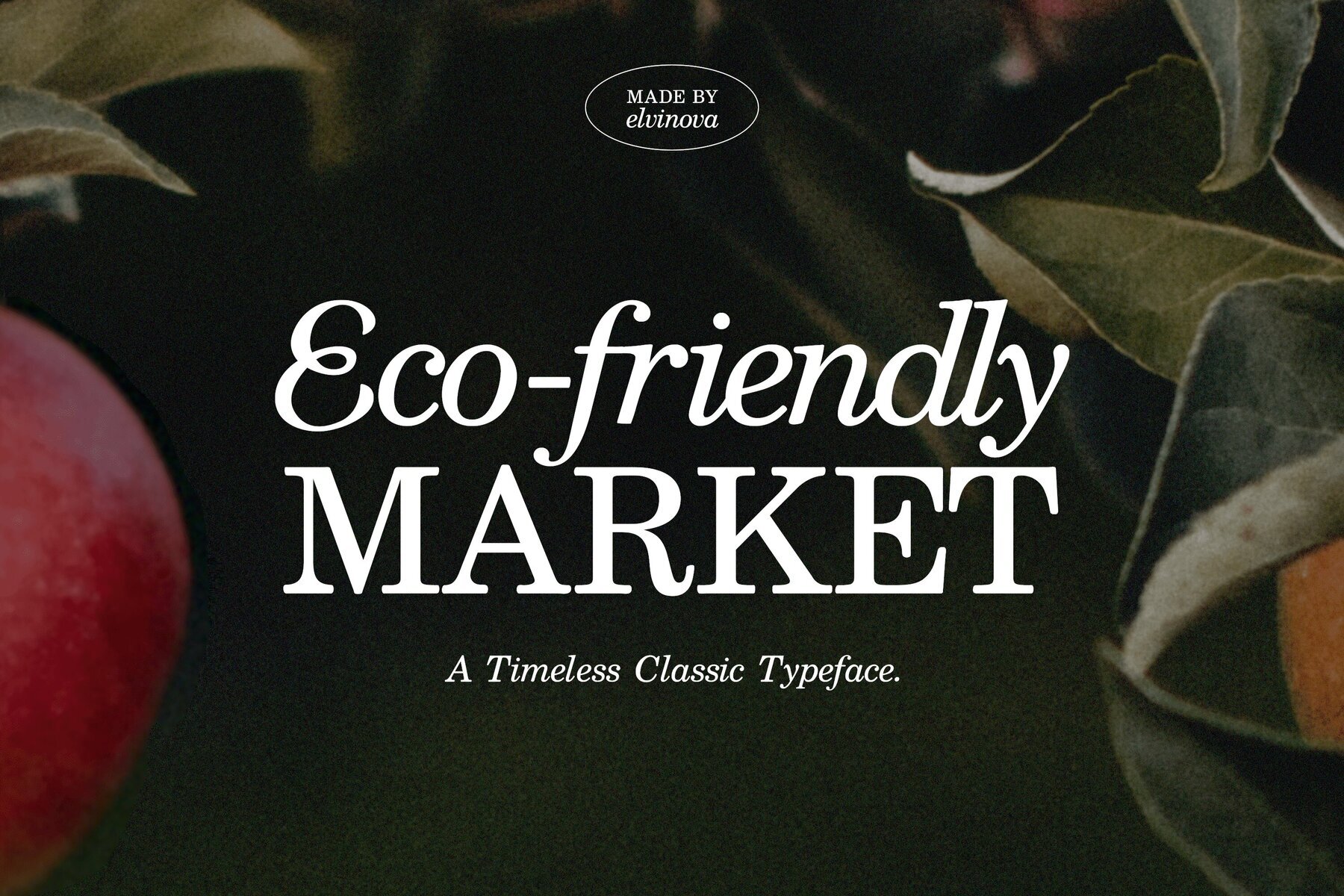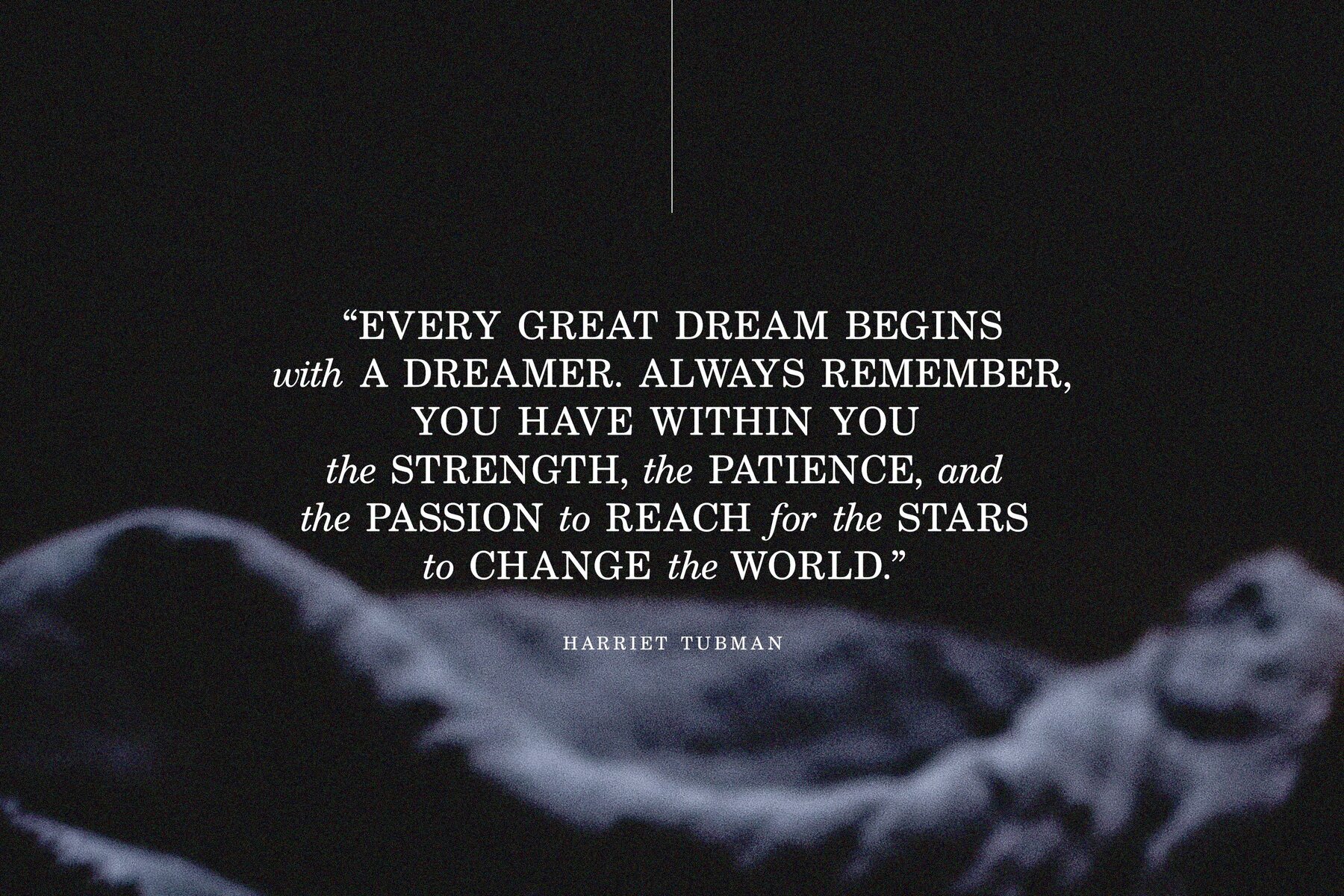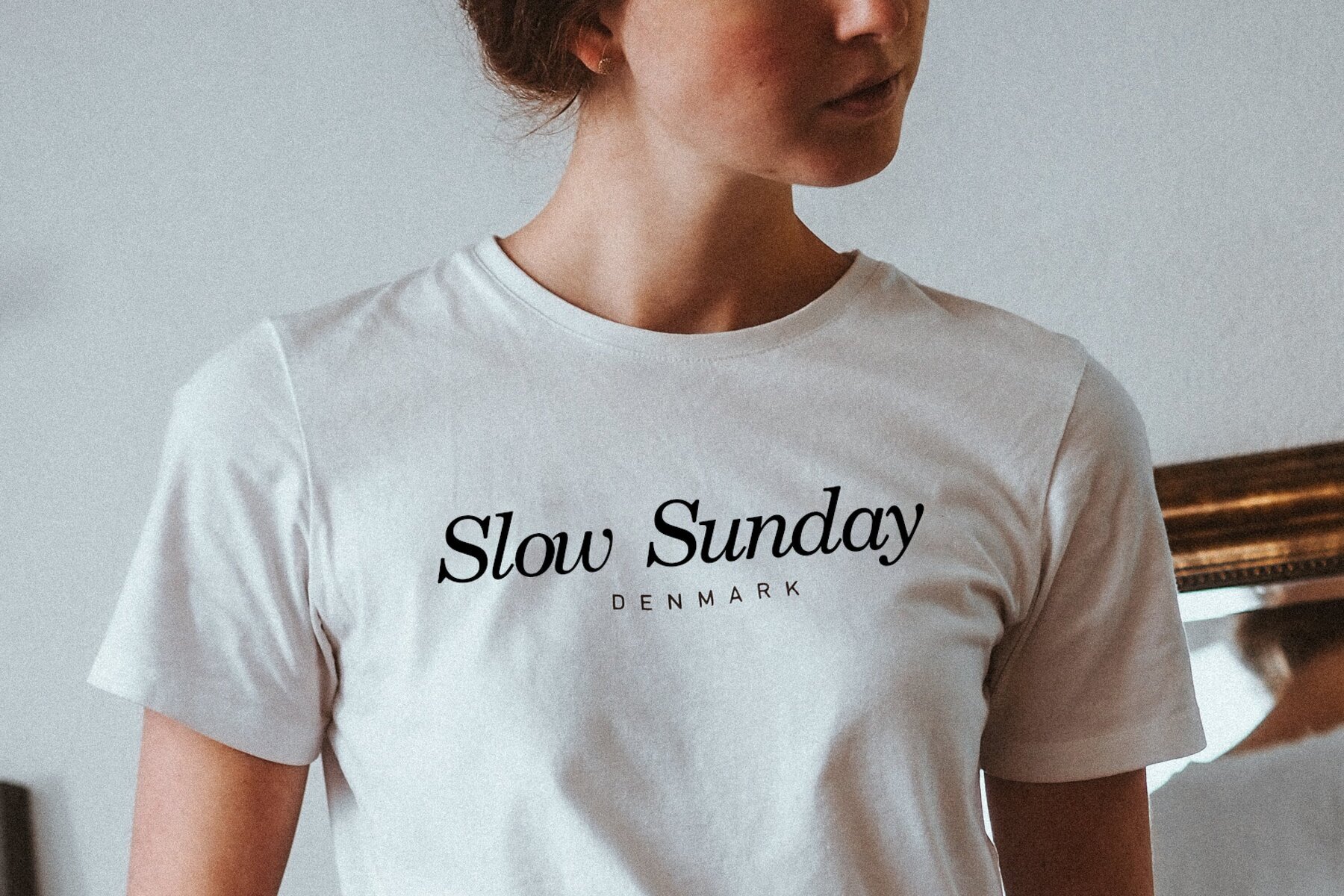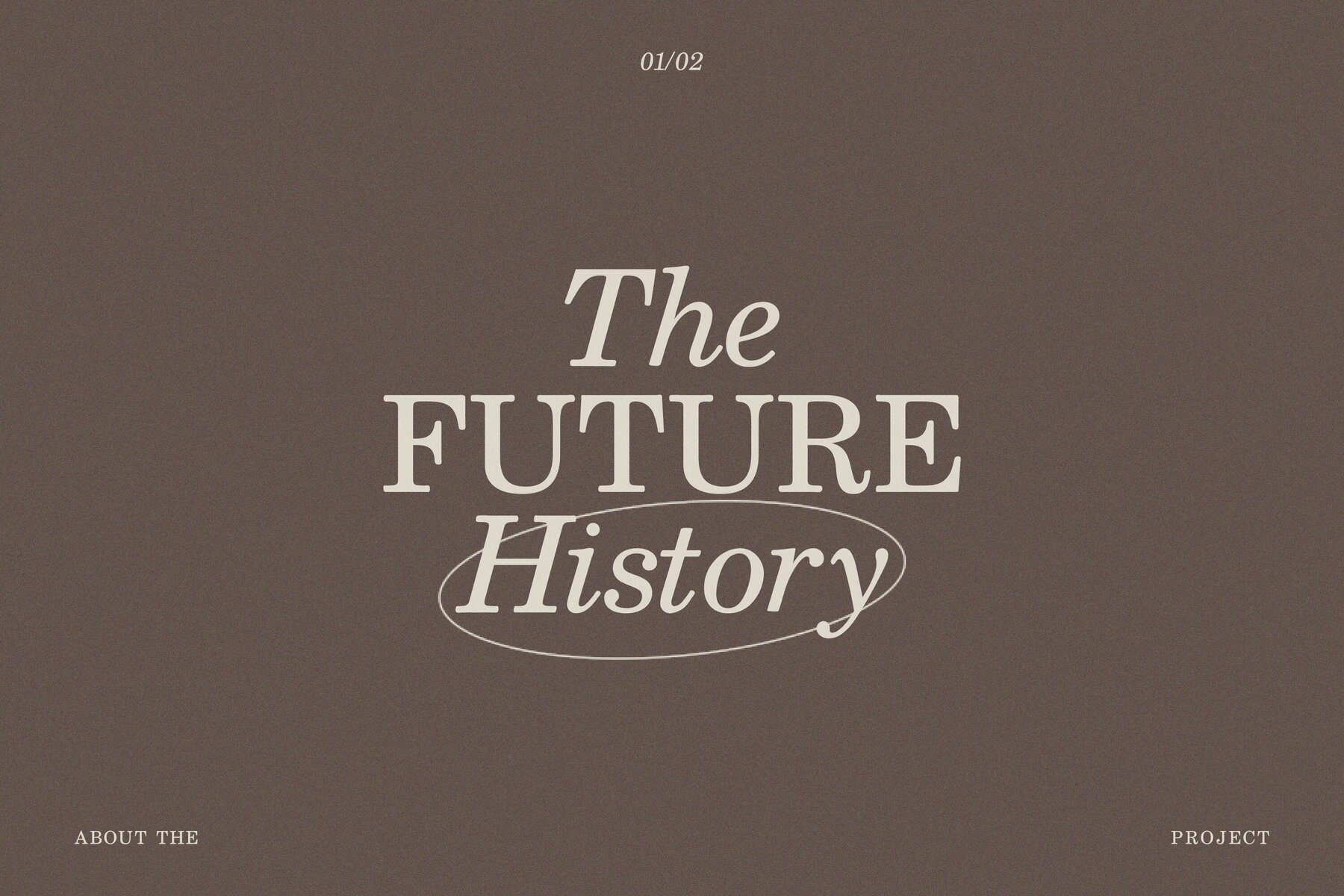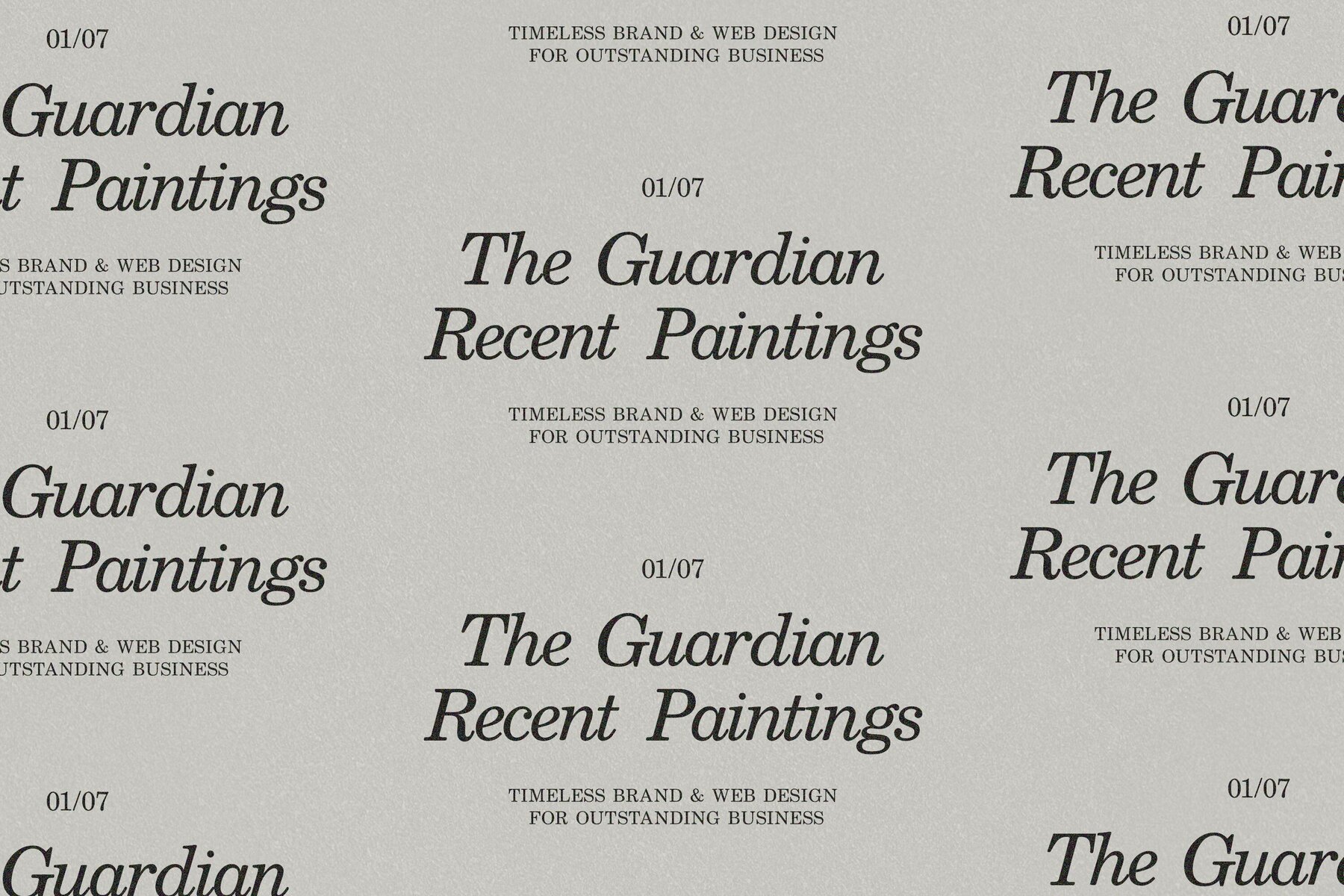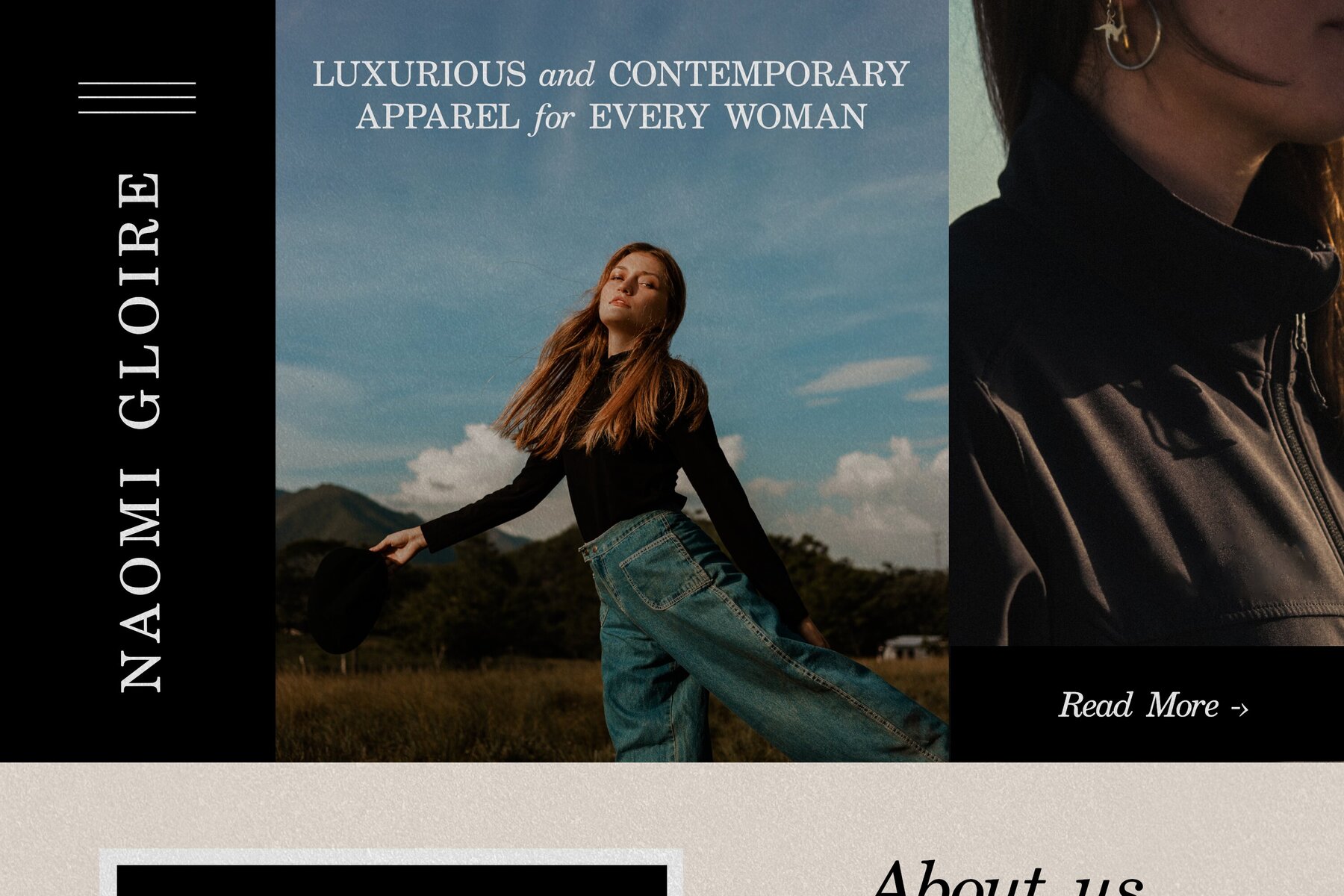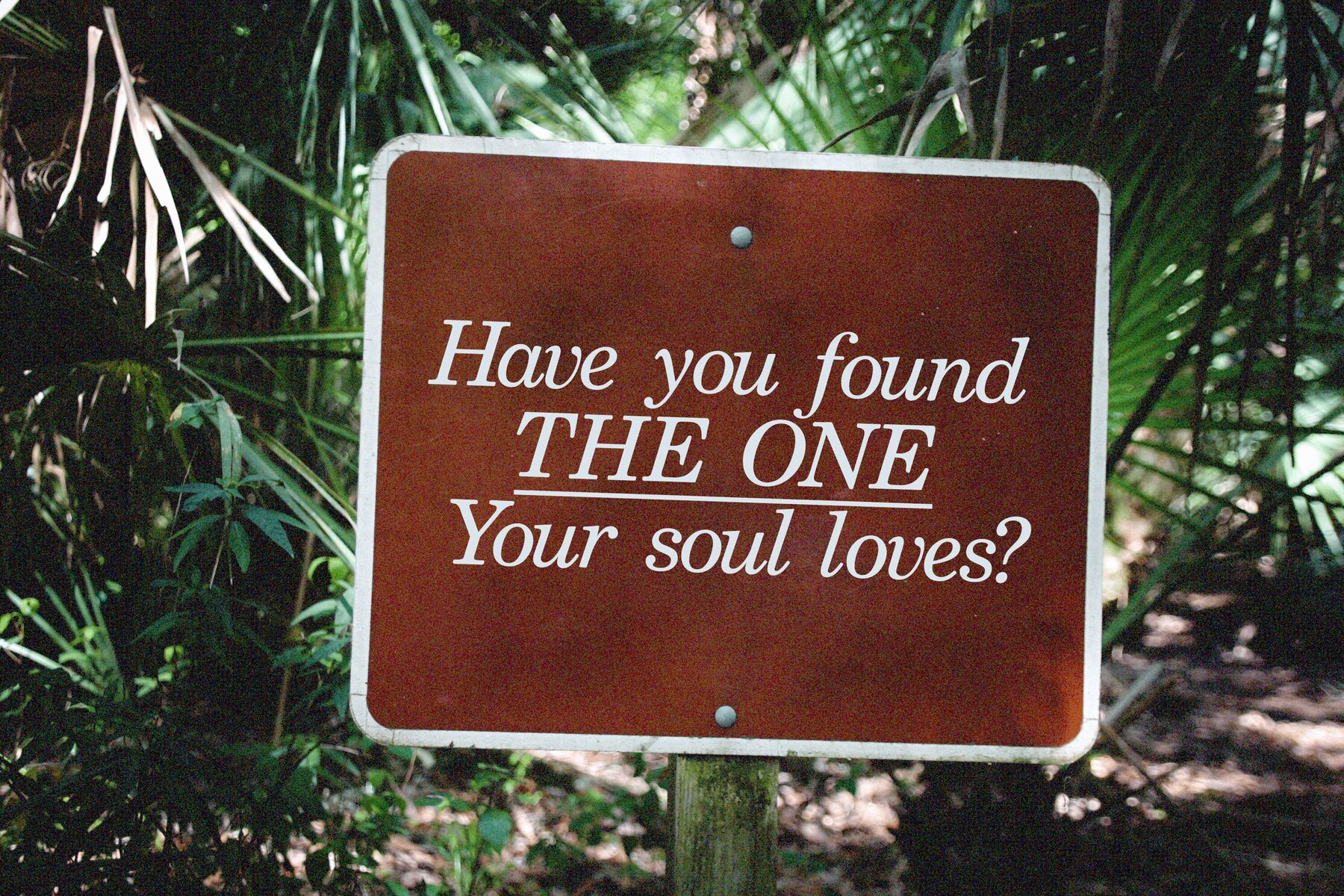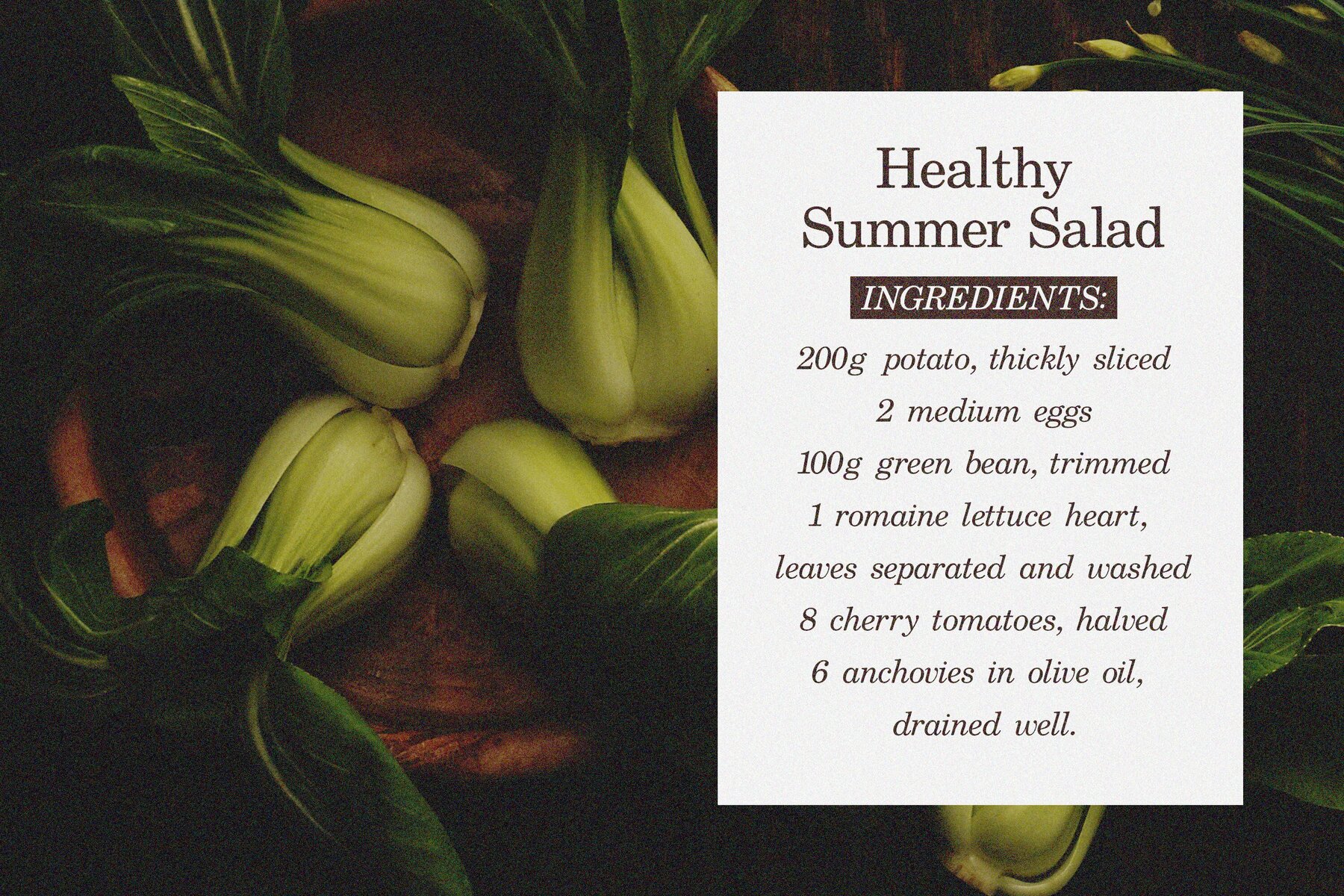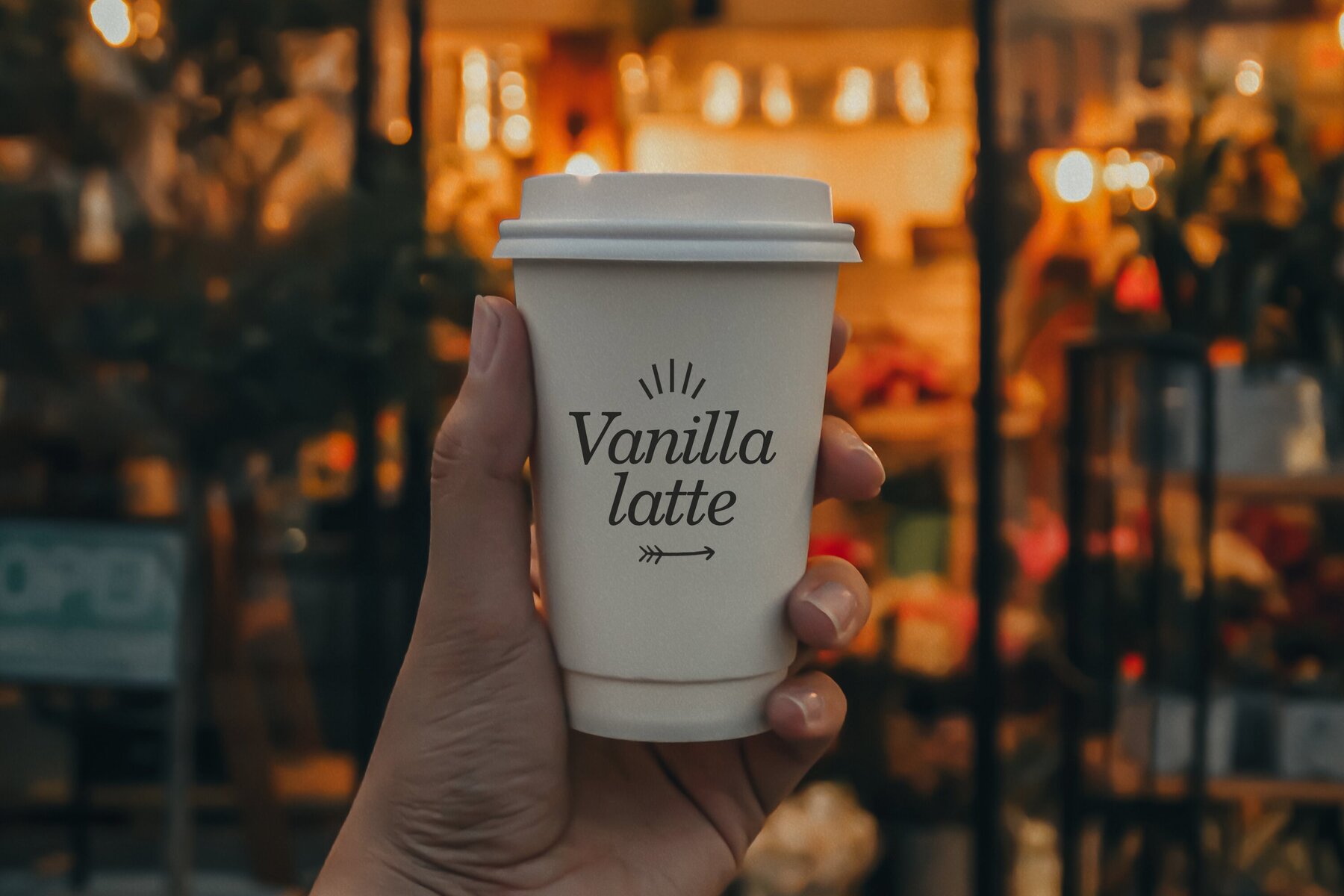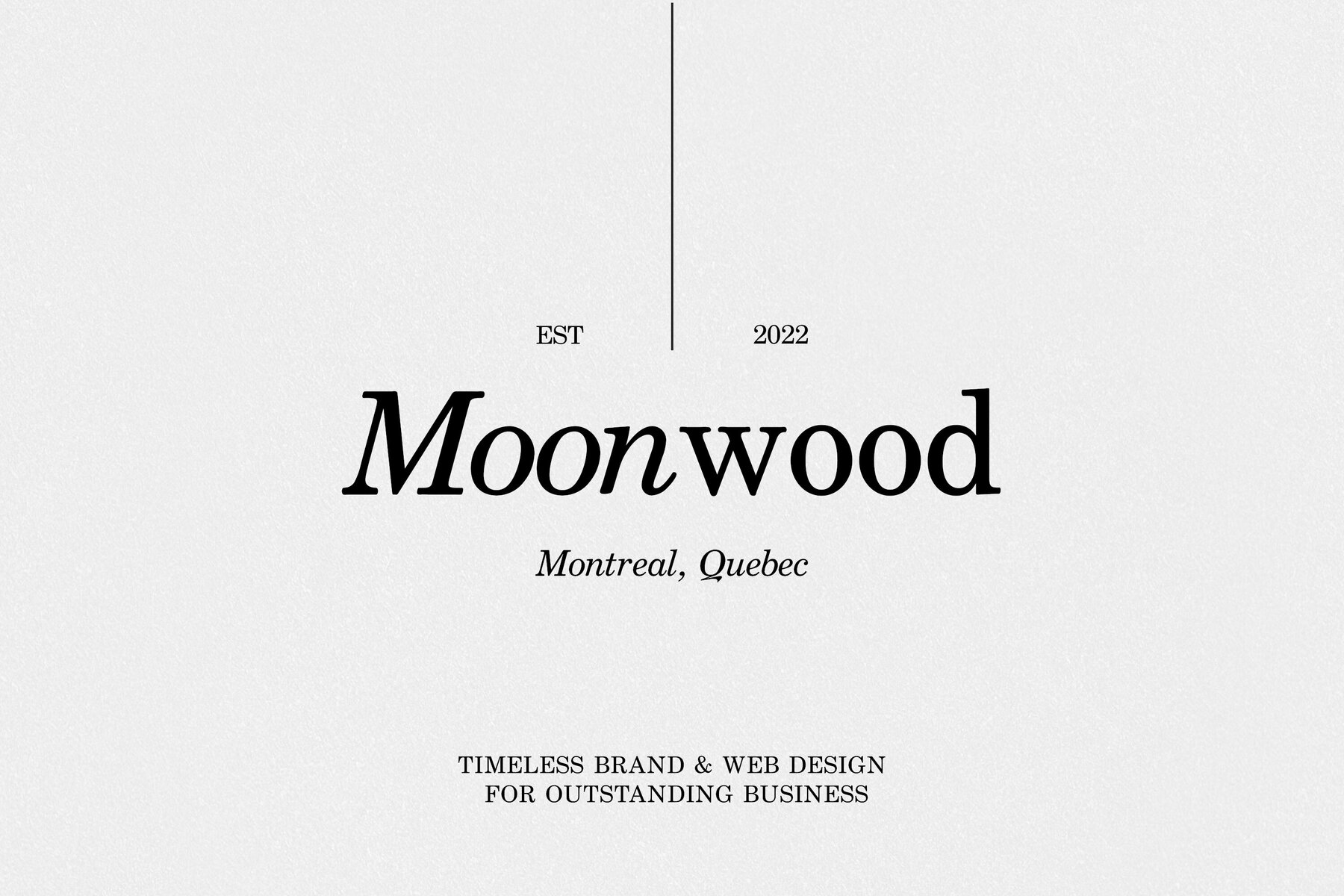
Eco Friendly Market Font
The Eco Friendly Market font offers a modern serif style influenced by classic vintage lettering, perfect for adding a unique touch to your designs. Supports languages including English, German, French, Spanish, Italian, Danish, Finnish, Portuguese, Swedish, Norwegian, Dutch, Indonesian, Luxembourgish, Icelandic, Cornish, Hungarian, Filipino, and Turkish.Eco Friendly Market: Modern Serif Inspired by Vintage Lettering
Extensive Language Support